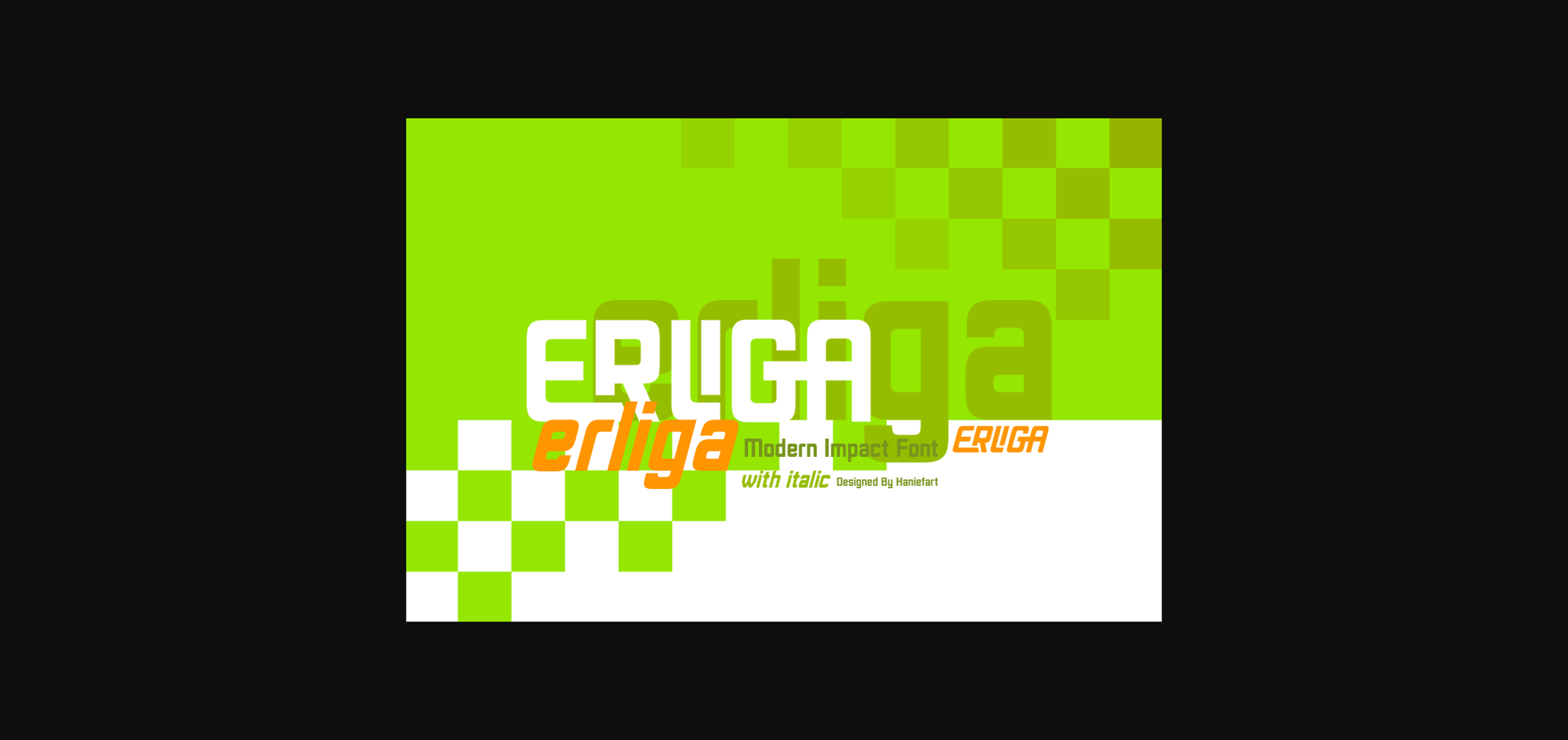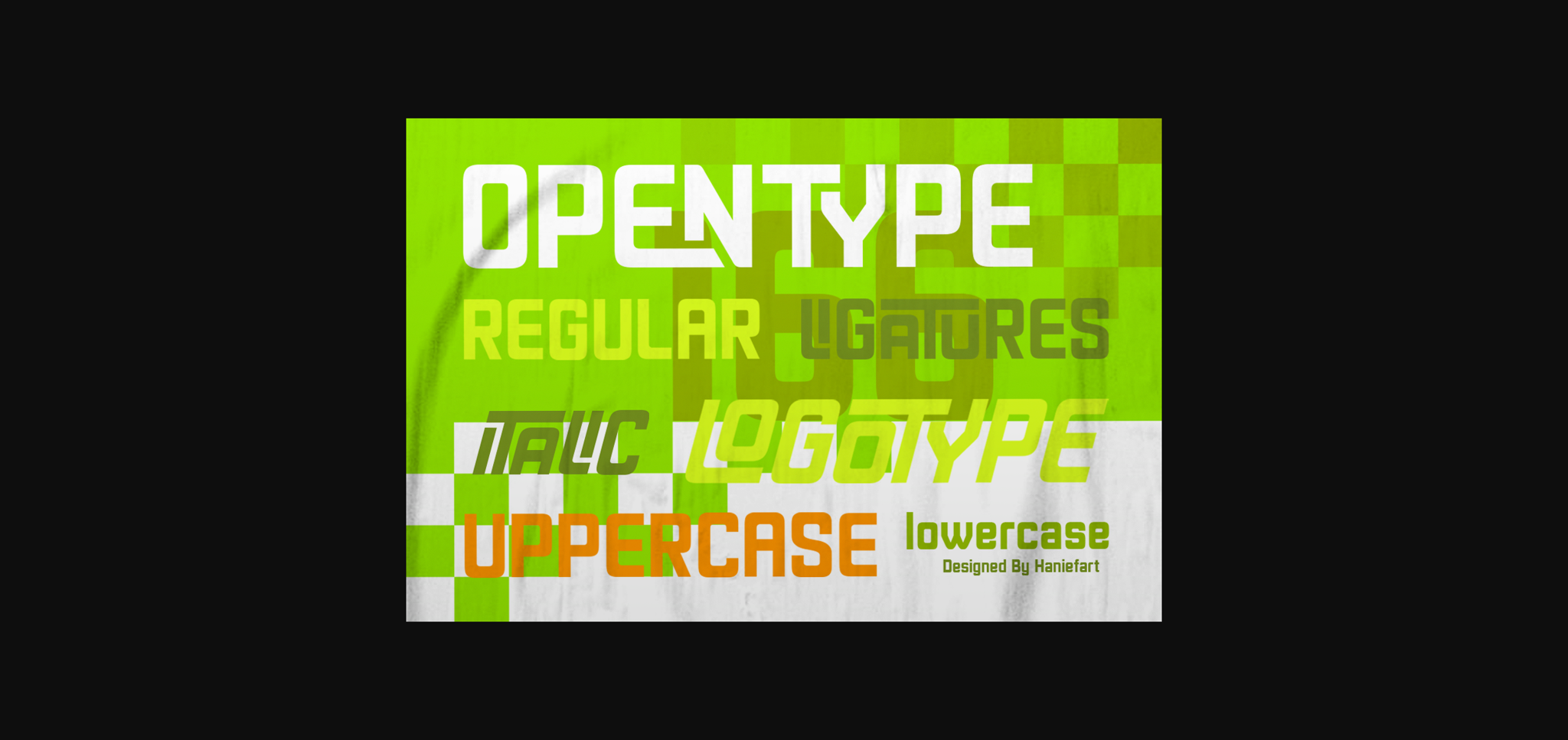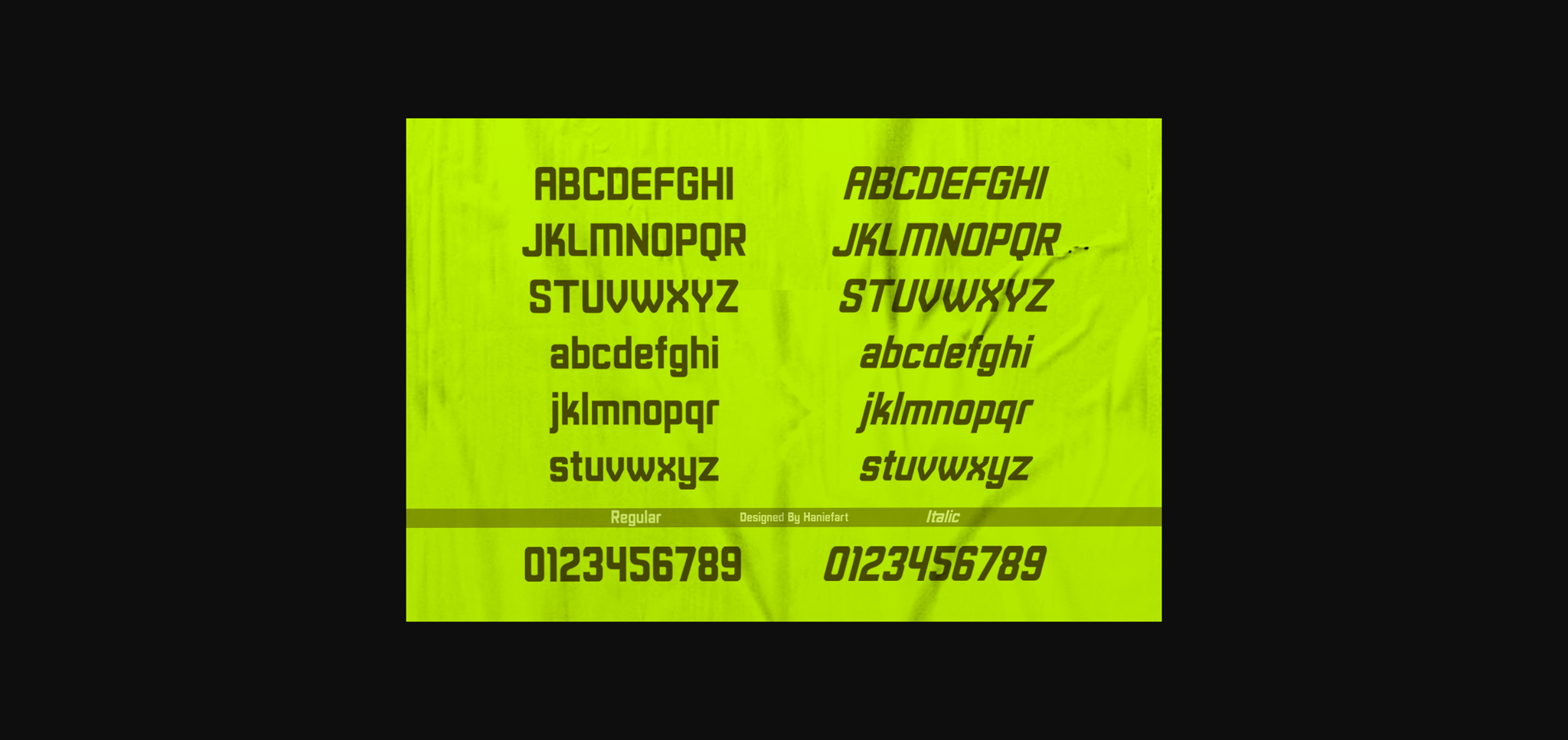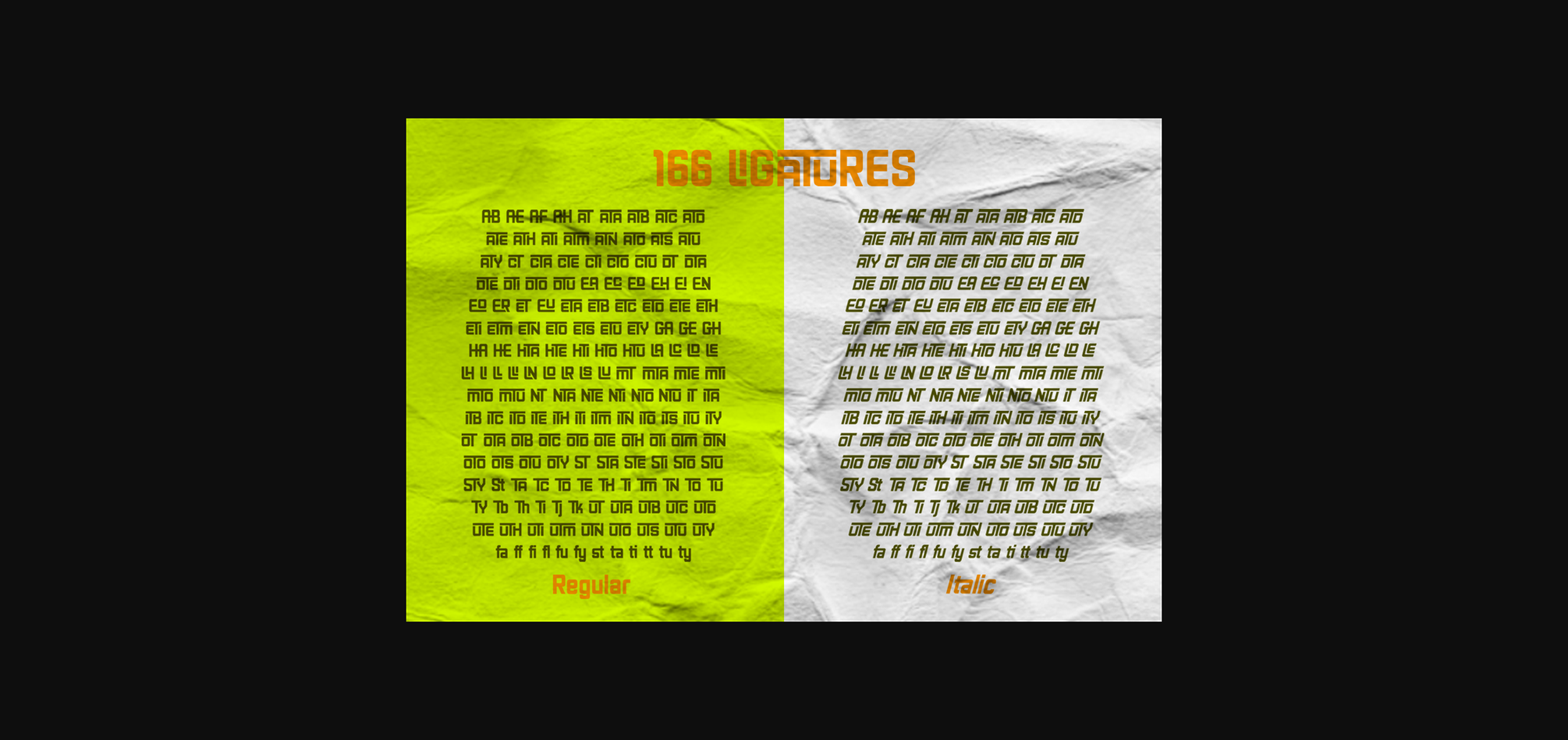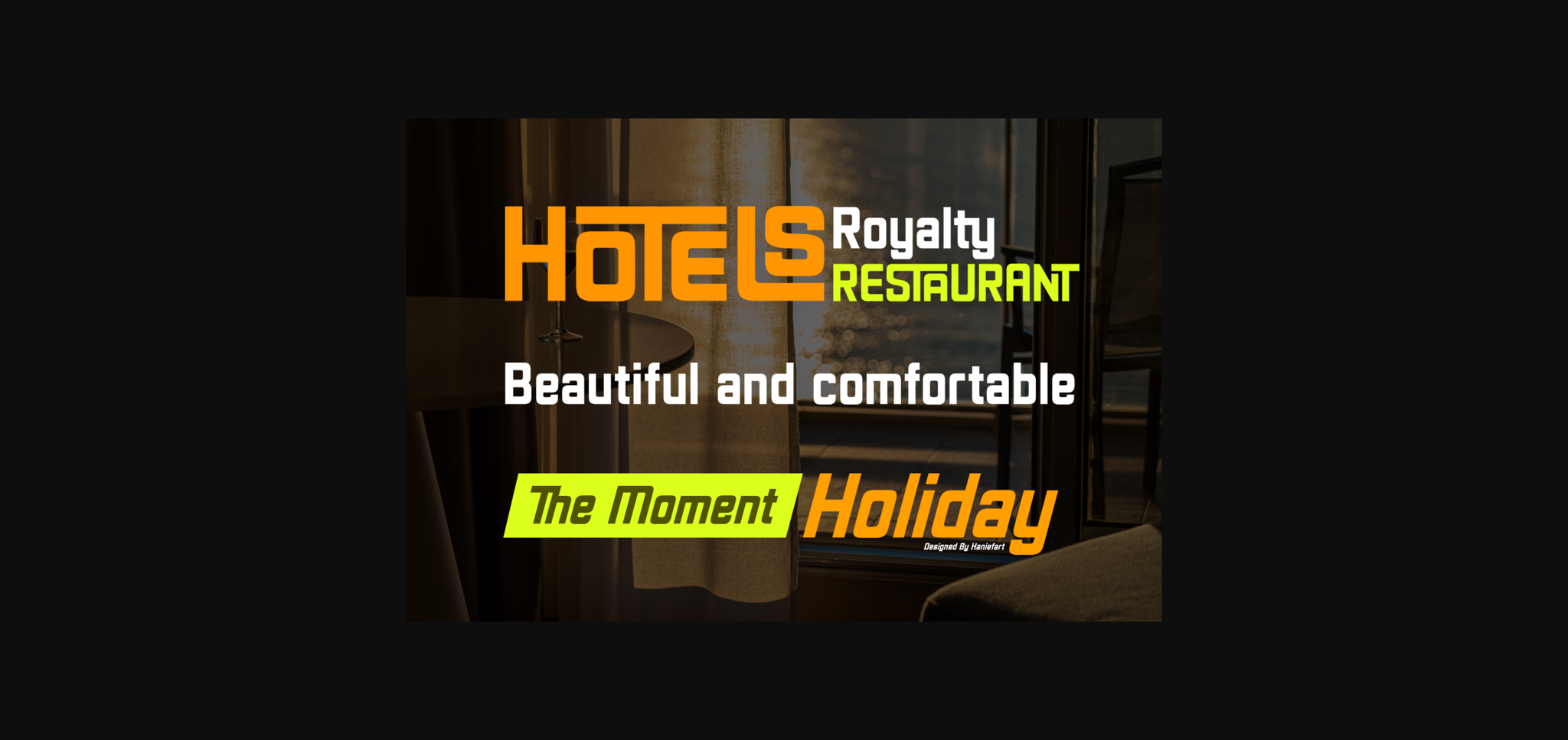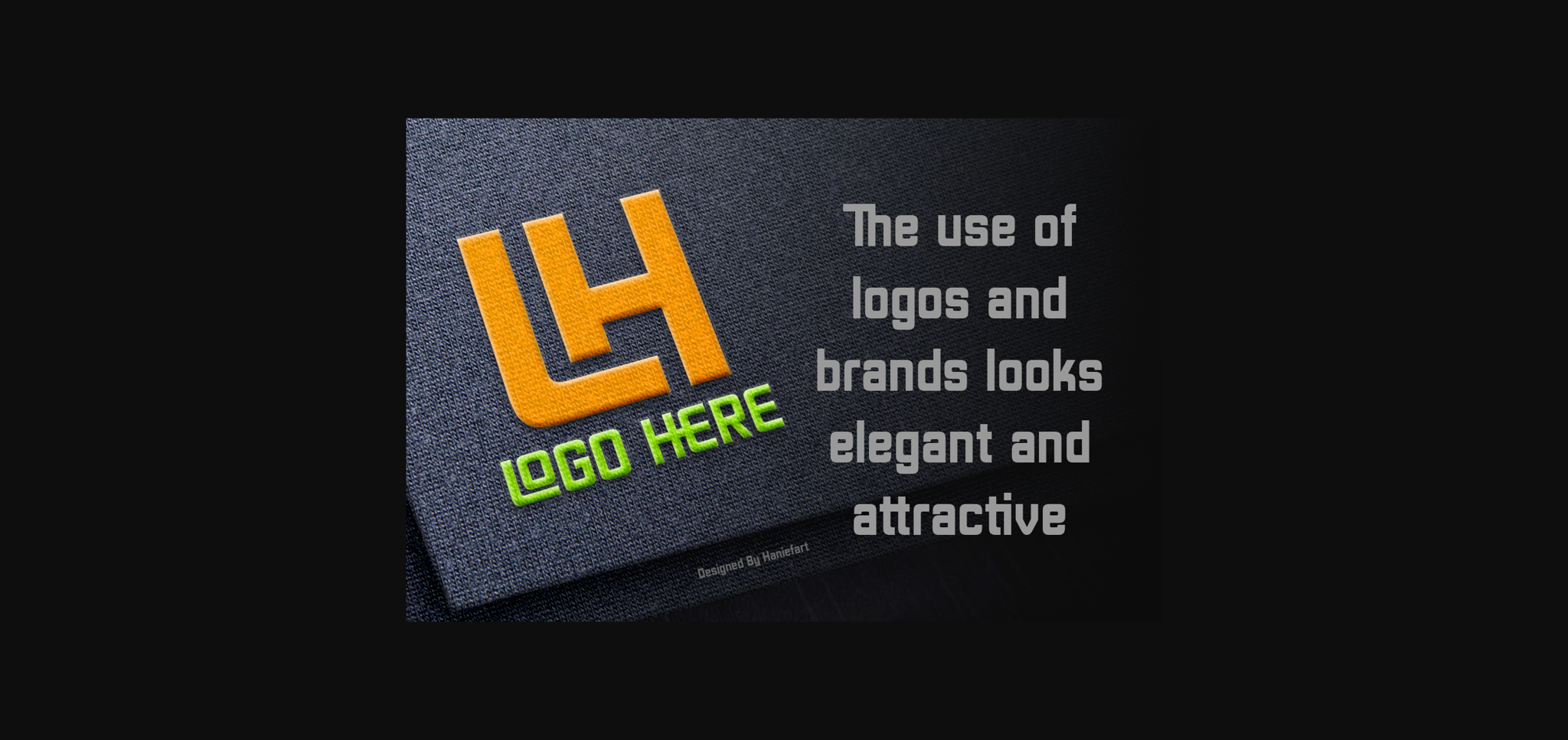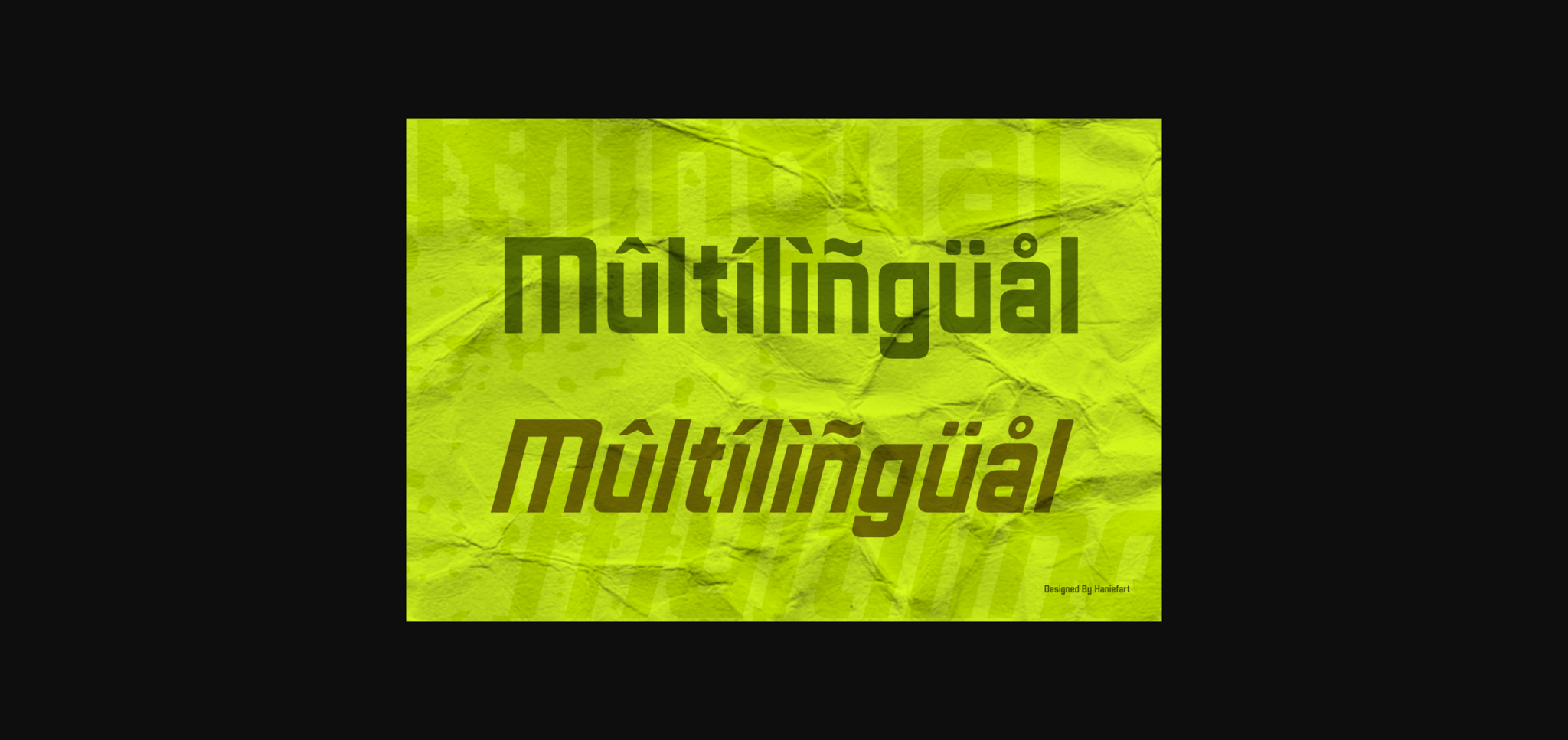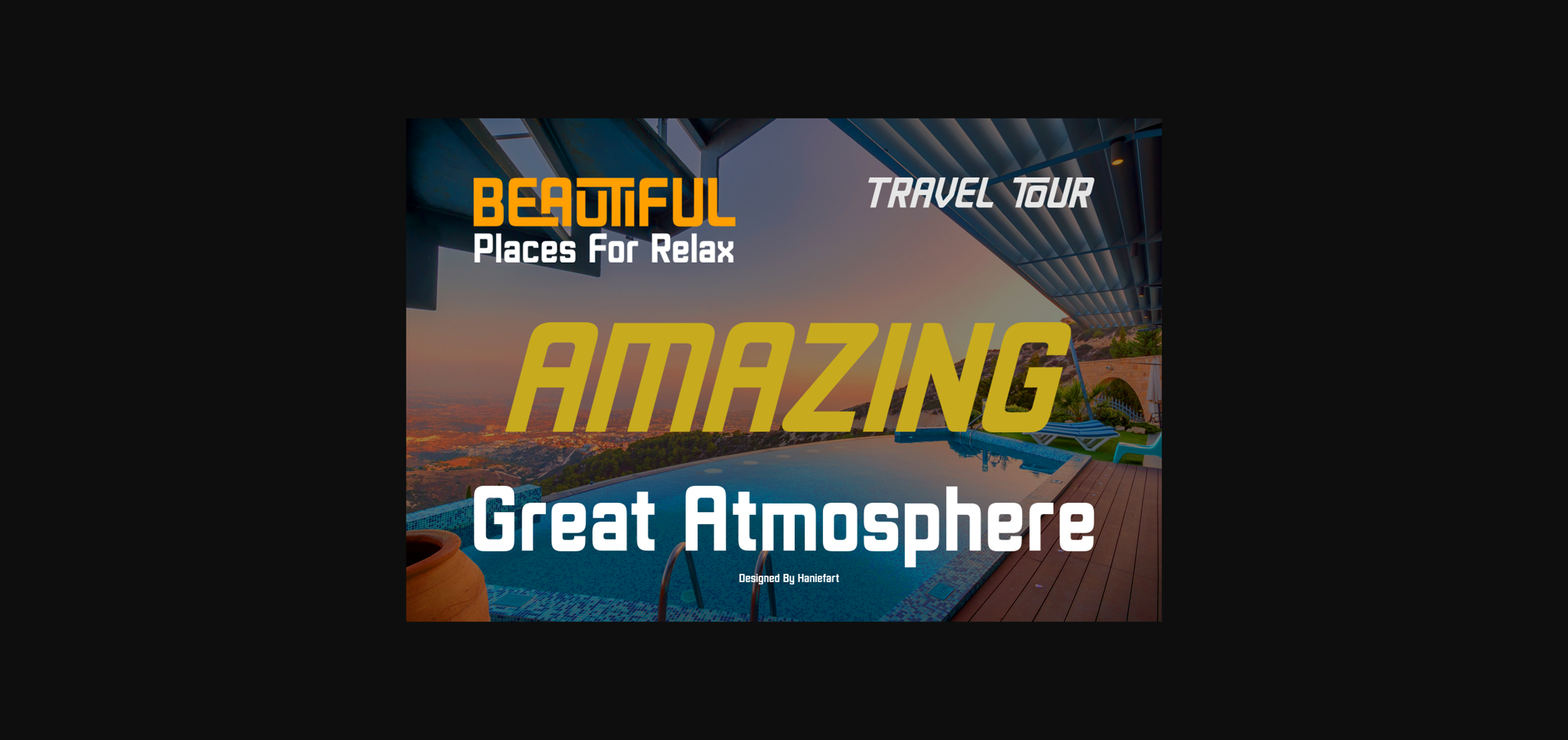
Erliga Font
About Erliga Font
Erliga is a robust sans-serif font that fantastically marries athleticism and elegance. Each meticulously crafted curve and corner emanates a modern sophistication, lending a superior touch to any artistic endeavor. The true brilliance of Erliga lies in its incredible adaptability from regular to italic styles, the collection is comprehensive and consists of an extensive series of both upper and lower case letters, punctuation marks, and symbols.
Erliga effortlessly blends into various design aesthetics, whether it’s corporate branding’s finessed results, cinematic title’s highlight, book cover’s elegance, or magazine format’s energy. It even breathes a unique vitality into the exhilarating sphere of team sports and beyond. Perfectly personifying the amalgamation of strength and flair.
Erliga manifests as an essential tool in your design. It morphs into more than a mere typeface, creating a rhythmic symphony of finesse and vitality that sets your passion projects apart.